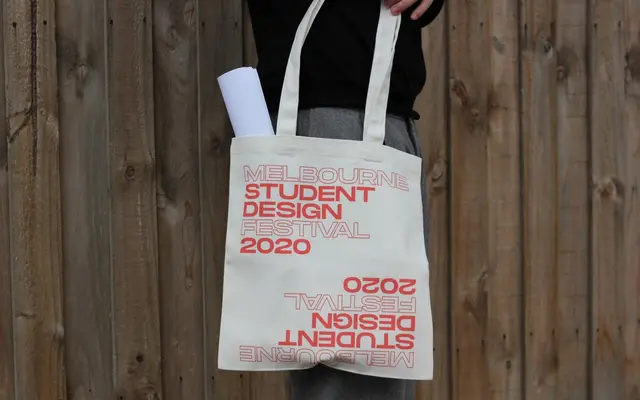
Monument
A brutalist-inspired grotesk spanning five widths and nine weights, each available as variable fonts with italics.
Drawing on the imposing forms of brutalist architecture, Monument is a display-leaning grotesk built for headlines and identity work. Five width variants run from Condensed to Extended, each offering nine weights in upright and italic styles, all as variable fonts. A major 2025 update expanded the family to 90 styles total, giving designers considerable range across screens and print.
A grotesk sans-serif with brutalist architectural influence, designed for display and titling use across five widths from condensed to extended.